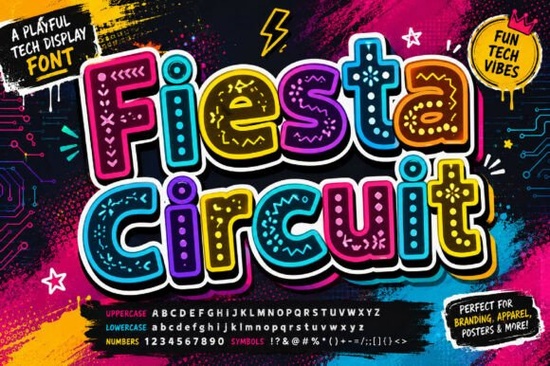
If you're looking for a decorative display font that screams tech-forward energy, the Fiesta Circuit Font is worth a close look. It combines bold, rounded letterforms with intricate circuit-board detailing, giving every character a distinct digital personality. Whether you're designing e-sport graphics, branding for a tech startup, or social media posts that need to pop, this font brings a playful futuristic vibe that's hard to ignore.
What Makes Fiesta Circuit Stand Out From Other Display Fonts?
Most decorative fonts lean either too playful or too sterile. Fiesta Circuit sits right in the middle. Each letter is packed with circuit-inspired elements think traces, nodes, and electronic pathways woven into the letterforms. The result is a typeface that feels energetic and modern without being unreadable.
The rounded shapes keep things friendly and approachable, while the tech detailing adds depth and visual interest. This balance makes it surprisingly versatile. You get the futuristic feel without sacrificing legibility at display sizes.
What Can I Actually Use This Font For?
This is a common question, and the honest answer is: any project where you want a bold, tech-inspired aesthetic. Here are some specific ideas:
- E-sport team logos and tournament graphics the circuit detail fits naturally with gaming culture
- Tech startup branding especially for apps, gadgets, or digital services
- Event posters and flyers hackathons, tech meetups, product launches
- Social media content YouTube thumbnails, Instagram stories, TikTok overlays
- Apparel and merchandise t-shirts, hoodies, stickers with a digital theme
- Print-on-demand products mugs, phone cases, posters for tech-niche shops
If you run a print-on-demand store targeting the gaming or tech audience, a font like this can help your designs feel more authentic and niche-specific. Pair it with clean sans-serif body text for a professional result.
How Does It Compare to Other Decorative Fonts?
If you're browsing decorative fonts and weighing your options, here's how Fiesta Circuit fits alongside similar styles. For something with a different kind of bold energy, Blaze brings heat-inspired lettering that works well for sports and action-themed projects. Its strong, angular forms give off a completely different mood.
On the softer side, Spirit Moon offers a more mystical, ethereal decorative style. It's a better fit for fantasy or spiritual-themed designs rather than the tech space.
For projects that call for elegance over edge, a monogram-style typeface like Dove Wedding Monogram covers formal and romantic design needs. And if you need something classic and reliable for body copy to pair with your display font, David is a solid choice that complements bolder headline fonts without competing for attention.
The key takeaway: pick a decorative font that matches the mood of your project. Fiesta Circuit is purpose-built for tech, gaming, and futuristic themes.
Tips for Getting the Best Results
Here are a few practical tips to make the most of this typeface:
- Use it at larger sizes. Decorative fonts with fine details like circuit traces look best in headlines, logos, and posters not in paragraphs of body text.
- Keep your color palette simple. Neon greens, electric blues, and black backgrounds amplify the tech aesthetic. Too many colors can make the design feel cluttered.
- Pair with a clean sans-serif. Use Fiesta Circuit for headlines and a simple font like Montserrat or Open Sans for supporting text.
- Test on mockups before selling. If you're using it for print-on-demand, preview your designs on product mockups to make sure the details render well at different sizes.
Is Fiesta Circuit Font Worth It?
If you regularly create designs for tech, gaming, or digital-culture niches, having a typeface like this in your toolkit saves time and adds authenticity. You won't need to layer effects or add extra graphics to get that futuristic feel the font does the heavy lifting on its own.
For crafters and small business owners, it's a smart way to create standout branding materials without hiring a custom lettering artist. And for designers who sell templates or graphics, a unique display font can make your products more appealing to a specific audience.